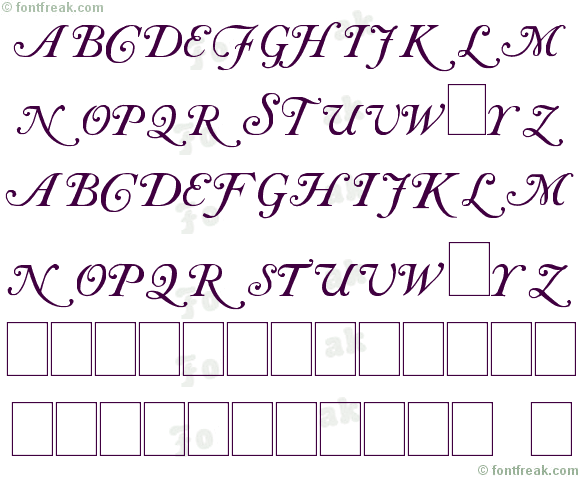
Caslon Initials
About Caslon Initials
Caslon Initials is a beautifully crafted decorative serif font designed by Paul Lloyd, embodying a classic elegance that elevates any design project. As a freeware font, it provides an accessible option for those seeking to add a touch of sophistication to their work. The font features a distinct contrast in stroke weight, showcasing delicate, flowing lines that are complemented by ornate flourishes. The spacing is thoughtfully designed to enhance readability while maintaining an artistic flair, making it ideal for various applications.
This font shines in use cases such as wedding invitations, where its elaborate initials can create a romantic and inviting atmosphere. For restaurant menus, the Caslon Initials font adds an element of charm and sophistication, perfect for fine dining establishments. It also works well for book covers, especially in genres like historical fiction or classic literature, where it can evoke a sense of heritage. Additionally, graphic designers may find it useful for branding projects, particularly when aiming to convey a sense of tradition and elegance.
Targeting graphic designers, small business owners, and content creators, Caslon Initials offers a unique way to enhance visual storytelling. Its artistic qualities resonate with audiences seeking authenticity and creativity, making it a versatile choice for various design needs.
What sets the Caslon Initials font apart is its perfect balance between classic style and modern usability. It enriches any project with its decorative elements while remaining functional and readable. The Caslon Initials font free download allows users to incorporate this timeless design into their work, ensuring that every piece stands out with elegance and flair. Whether for personal or professional use, this font is a valuable addition to any designer's toolkit.